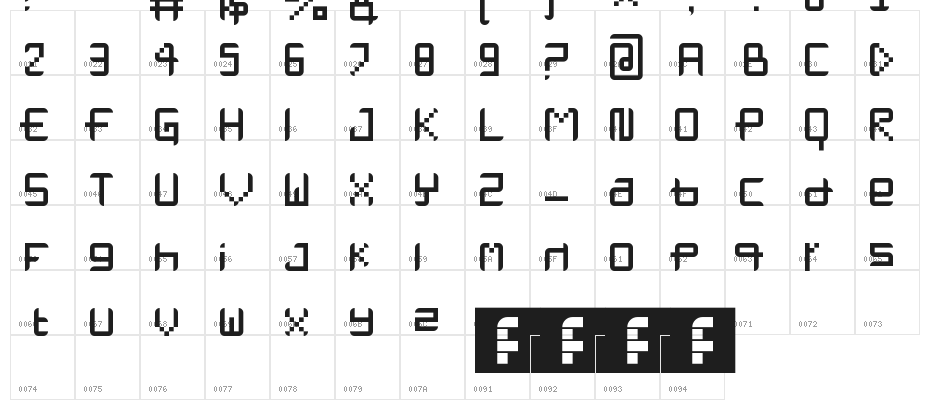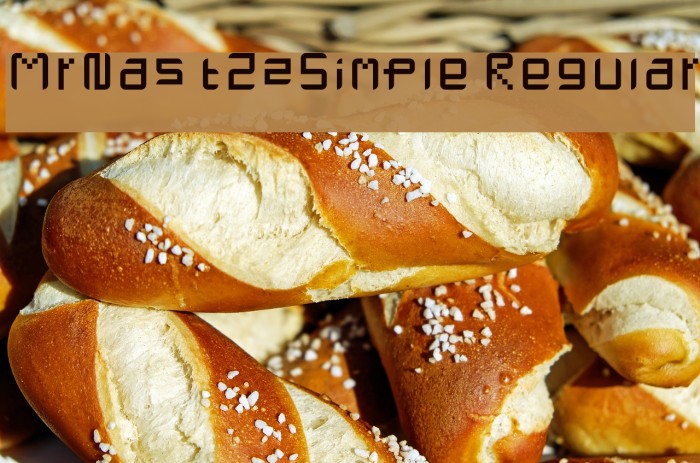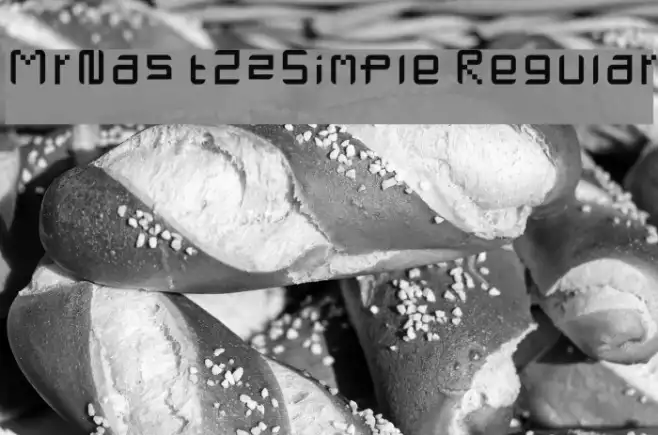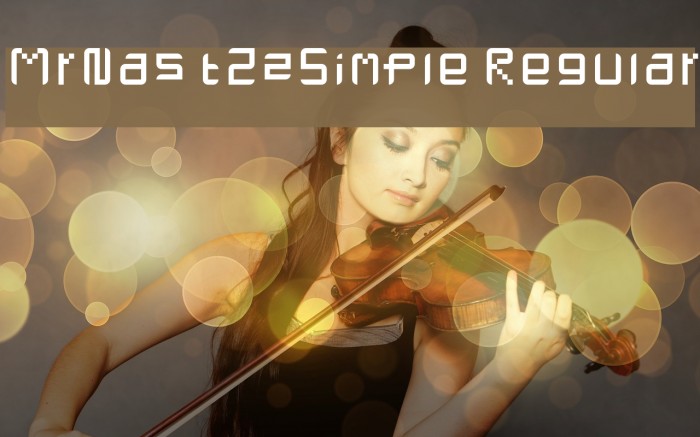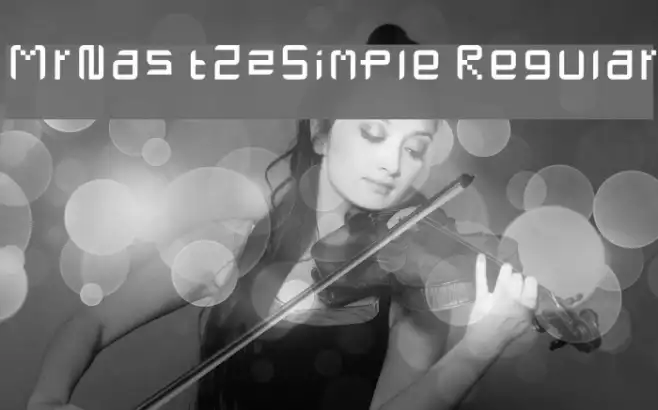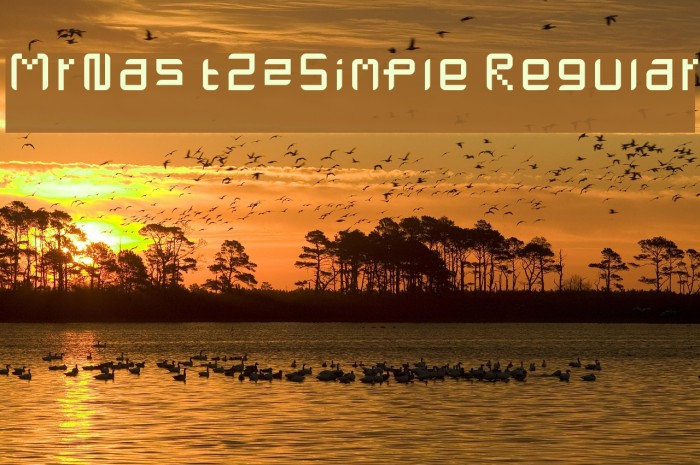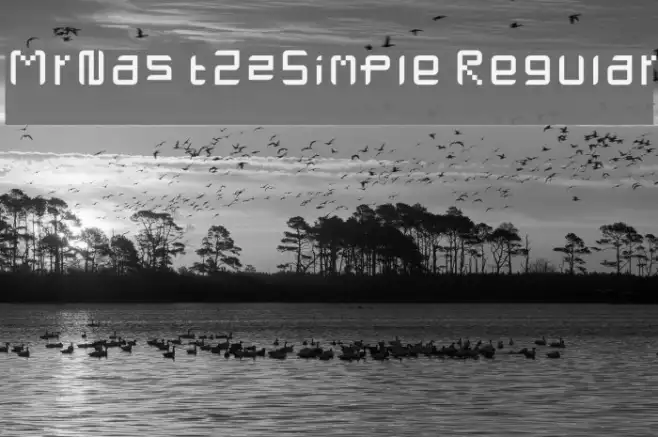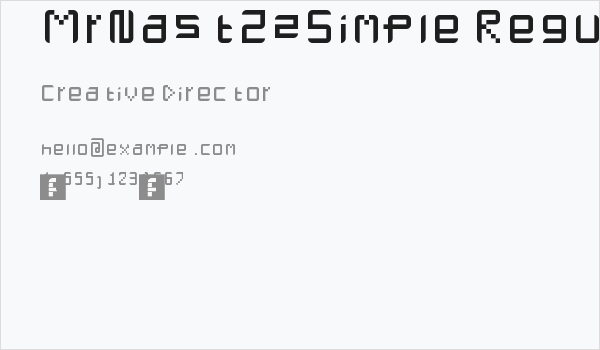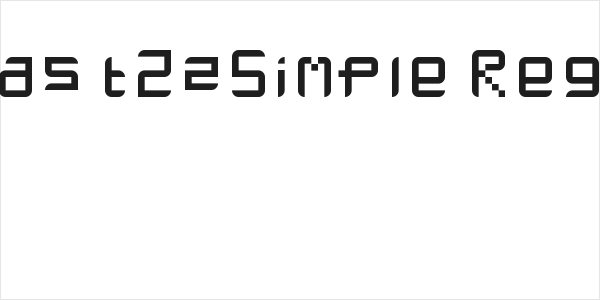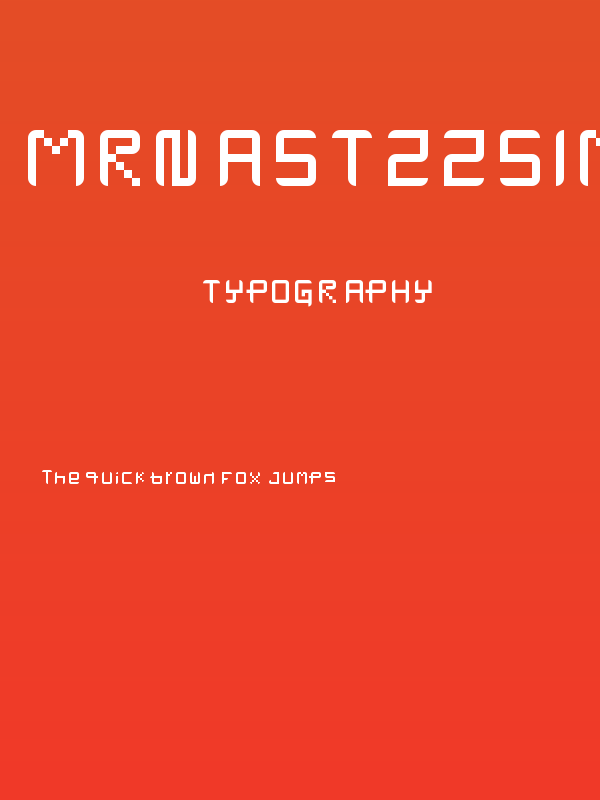
MrNastZzSimple Regular Font
MrNastZzSimple Regular Description
This font features a unique, pixelated style that combines modern digital aesthetics with a retro gaming feel. The characters are composed of blocky, geometric shapes that give it a distinct, tech-inspired look. The uppercase and lowercase letters maintain a consistent design, with sharp angles and uniform line thickness. Numbers and special characters follow the same pixelated theme, ensuring a cohesive appearance across all glyphs. The font's design is both playful and functional, making it suitable for projects that require a digital or futuristic vibe.
| Use Case | Logos, Headlines, Digital Art |
| Proposed Projects | Ideal for video game design, tech-themed posters, digital art projects, and retro-style branding. |